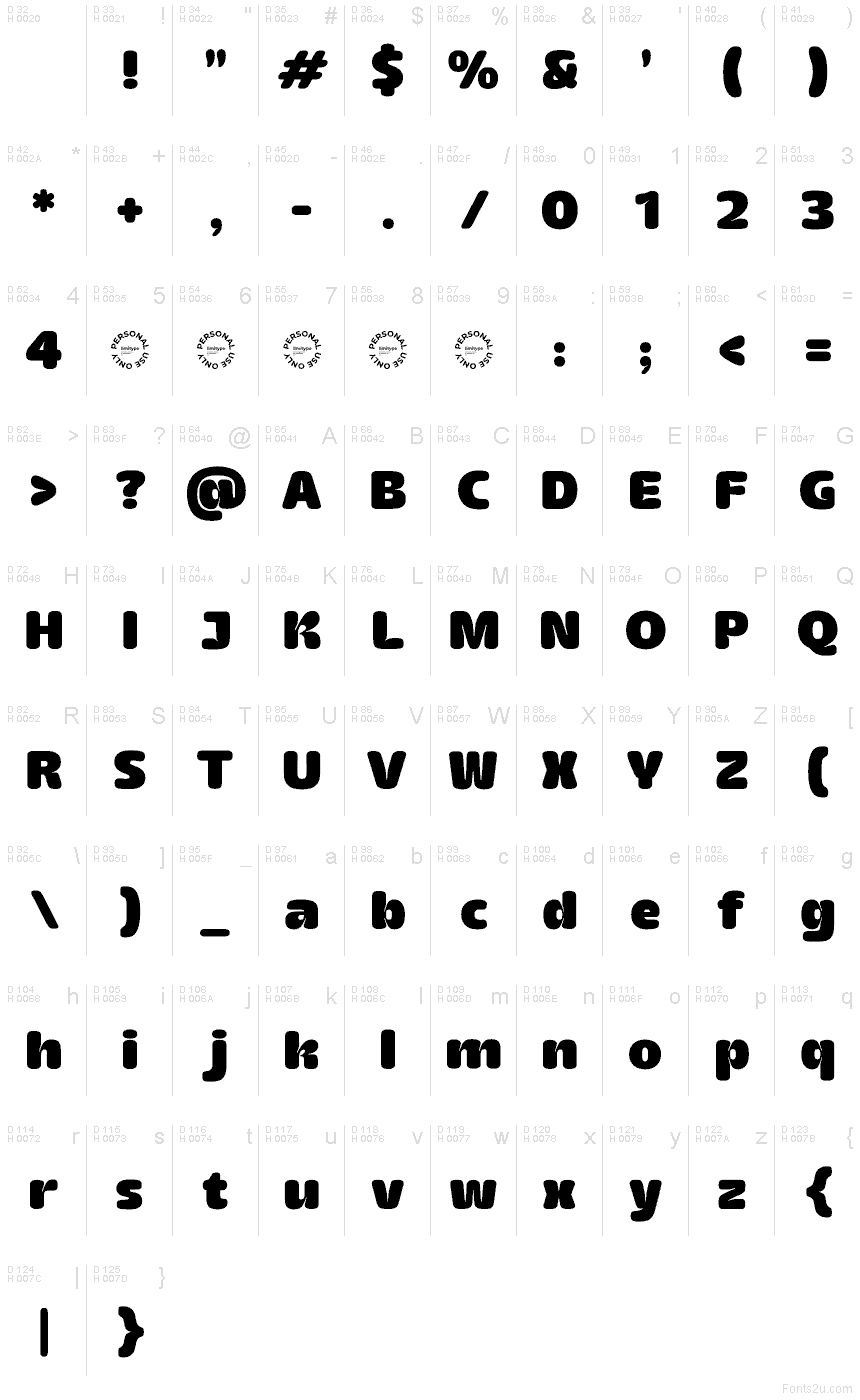
Rantaro Demo
Rantaro font by Muhammad Muammar, Ridwan Fadilah, Furqan Sudirman of Limitype is a free bold rounded display font. Built around plush, pill-shaped forms and deep, inky curves, it feels soft to the touch yet lands with confident heft. The strokes swell smoothly into each other, giving every word a friendly bounce without losing structure, and the generous counters keep it readable at punchy sizes.
Using Rantaro, headlines pop with a chewy, upbeat rhythm that shines on packaging, kid-focused branding, snack labels, gaming logos, event posters, and sticker designs. This free font loves big type, roomy margins, and high-contrast color. Pair it with a clean grotesk for body copy—let Rantaro handle the spotlight while the supporting text stays crisp and quiet.